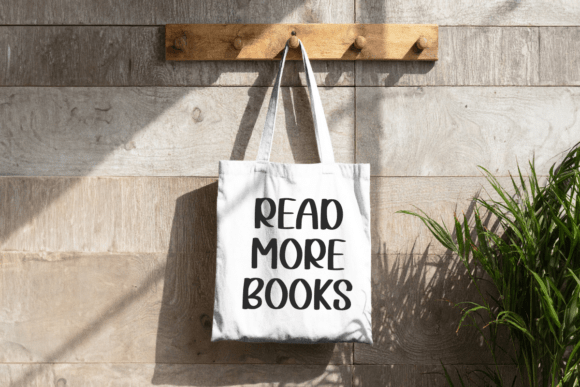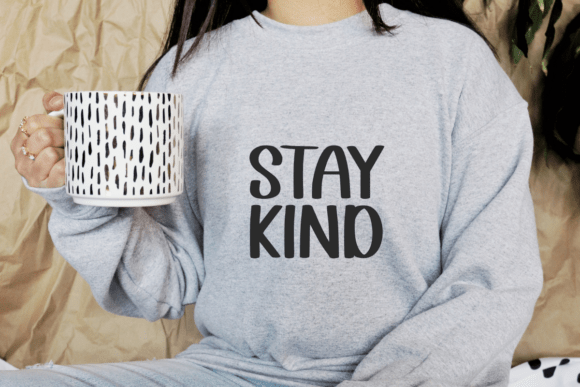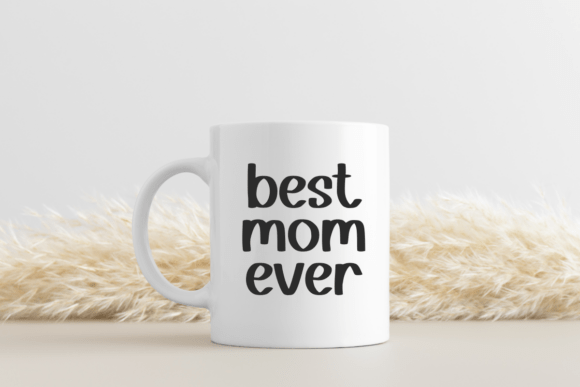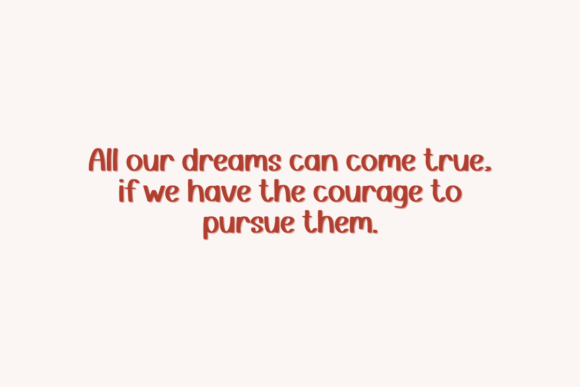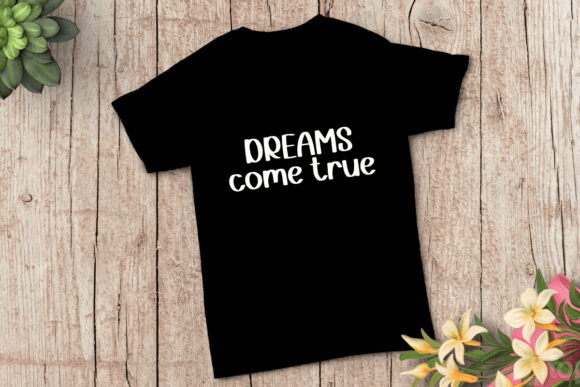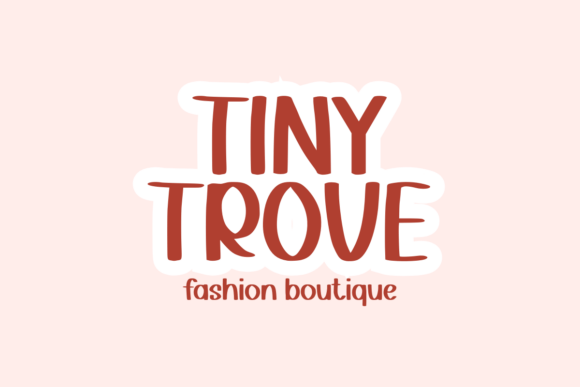
Beautiful Valentine Font: The Perfect Typeface for Romantic Designs
Valentine’s Day is just around the corner, and what better way to express your love and affection than with a beautiful, eye-catching font? Look no further than the Beautiful Valentine Font, a heartwarming, cute handwriting font that’s perfect for conveying sincerity without being overly formal. In this article, we’ll dive into the features and benefits of this lovely typeface and explore how it can elevate your romantic designs.
A Cute and Cheerful Disposition
The Beautiful Valentine Font boasts a bouncy, cheerful disposition that’s sure to capture the hearts of your audience. Its thick, soft, and beautifully rounded letterforms give it a strong, lovable presence that’s perfect for romantic designs. Whether you’re creating Valentine’s Day promotions, anniversary cards, or baby shower invitations, this font is sure to add a touch of warmth and personality to your project.
Perfect for Romantic Designs
The Beautiful Valentine Font is an excellent match for any design that requires a cute, bold, and utterly charming aesthetic. Here are some ideas for projects that would be perfect for this lovely typeface:
- Valentine’s Day promotions: Create eye-catching posters, social media graphics, or email headers that will make your audience feel loved and appreciated.
- Anniversary cards: Express your love and gratitude with a heartfelt, handwritten-style card that features the Beautiful Valentine Font.
- Baby shower invitations: Welcome the new arrival with a sweet and charming invitation that sets the tone for a joyful celebration.
- Children’s apparel: Add a touch of whimsy and fun to your kids’ clothing and accessories with this delightful font.
- Branding: Use the Beautiful Valentine Font to create a lovable and approachable brand identity that resonates with your audience.
Clear, Legible Structure
One of the standout features of the Beautiful Valentine Font is its clear, legible structure. The letters are easy to read, making it perfect for eye-catching titles and heartfelt messages. Whether you’re designing for print or digital, this font will ensure that your message is conveyed with clarity and style.
Why Choose the Beautiful Valentine Font?
So why choose the Beautiful Valentine Font for your romantic designs? Here are just a few reasons:
- Cute and charming: This font is sure to add a touch of whimsy and fun to your designs.
- Easy to read: The clear, legible structure makes it perfect for titles and messages.
- Versatile: Use it for a wide range of projects, from Valentine’s Day promotions to children’s apparel.
- Heartfelt: This font conveys sincerity and warmth, making it perfect for romantic designs.
Tips for Using the Beautiful Valentine Font
Here are some tips for getting the most out of the Beautiful Valentine Font:
- Pair it with complementary fonts: Use the Beautiful Valentine Font in combination with other fonts to create a unique and eye-catching design.
- Experiment with colors: Try out different colors and textures to add depth and interest to your design.
- Keep it simple: Don’t be afraid to keep your design simple and elegant – the Beautiful Valentine Font will shine on its own.